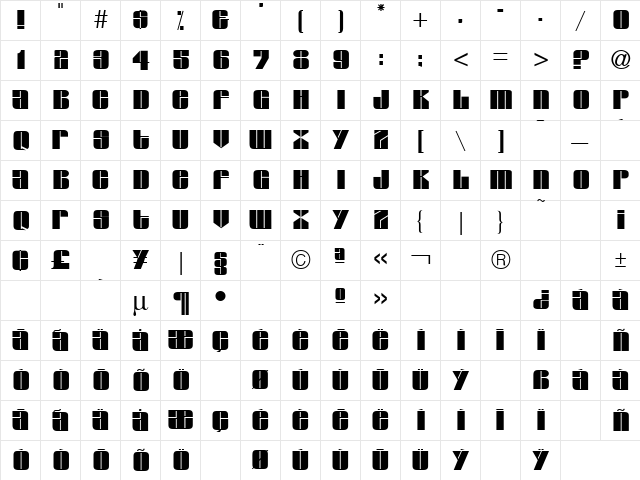
Camera's Eye 2 Regular
Camera's Eye 2 is a composed and adaptable typeface that performs quietly and consistently across a wide range of design contexts.